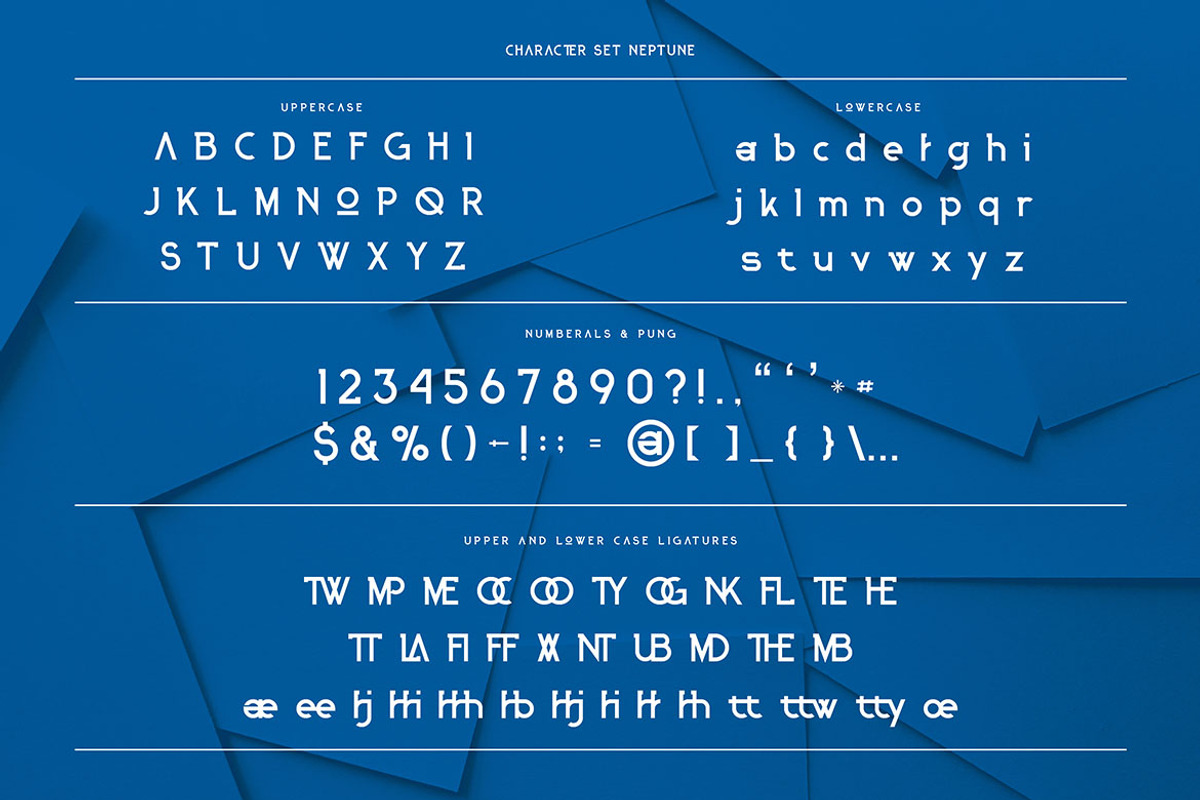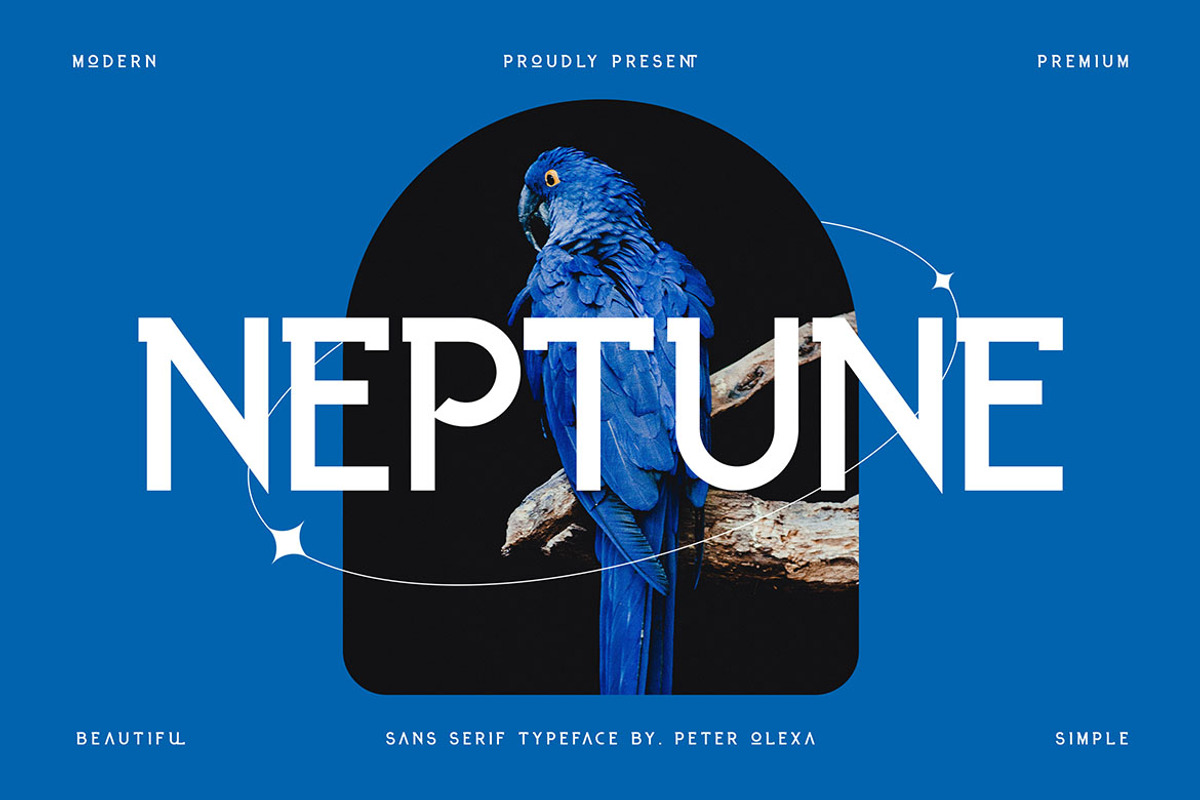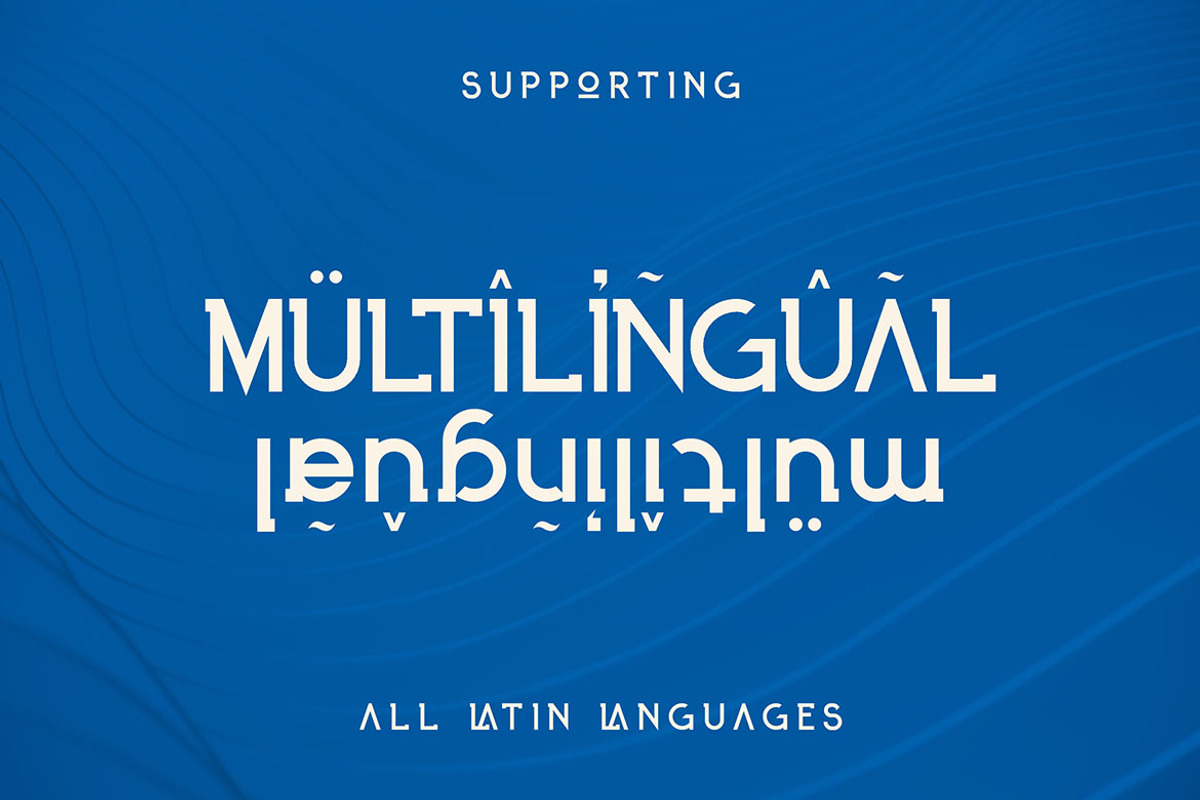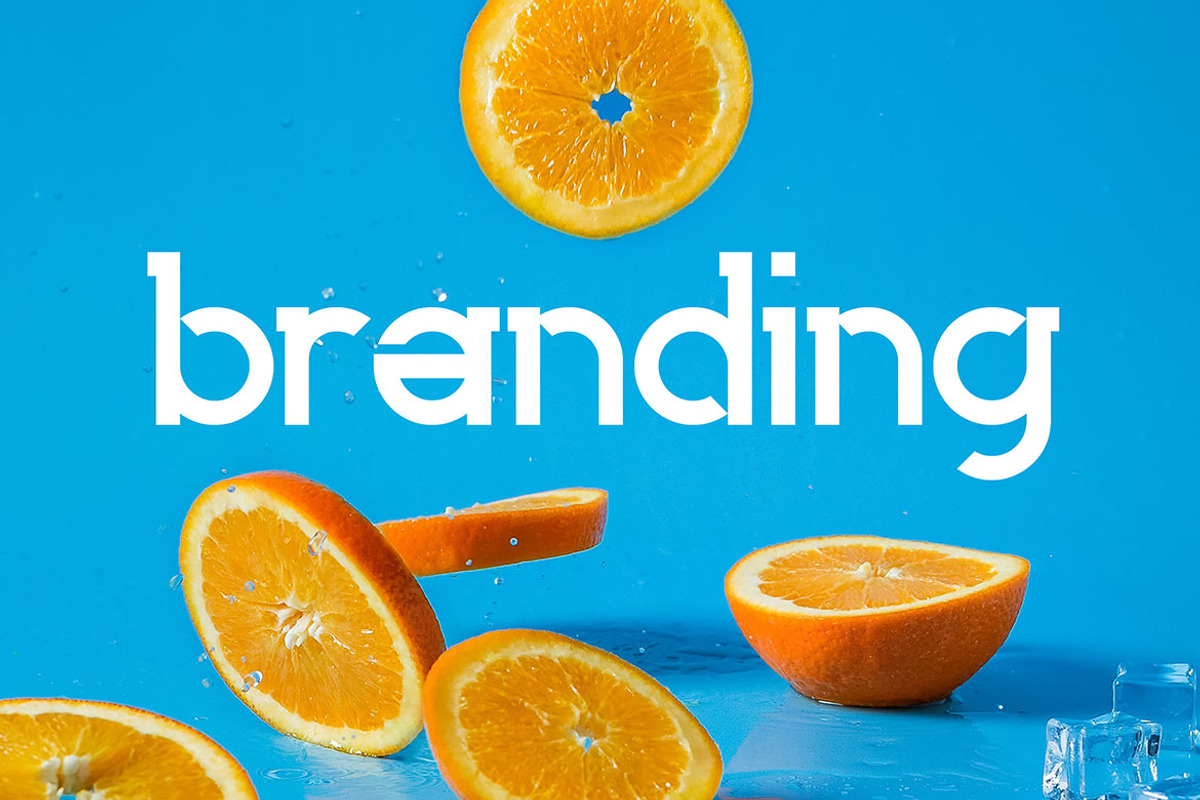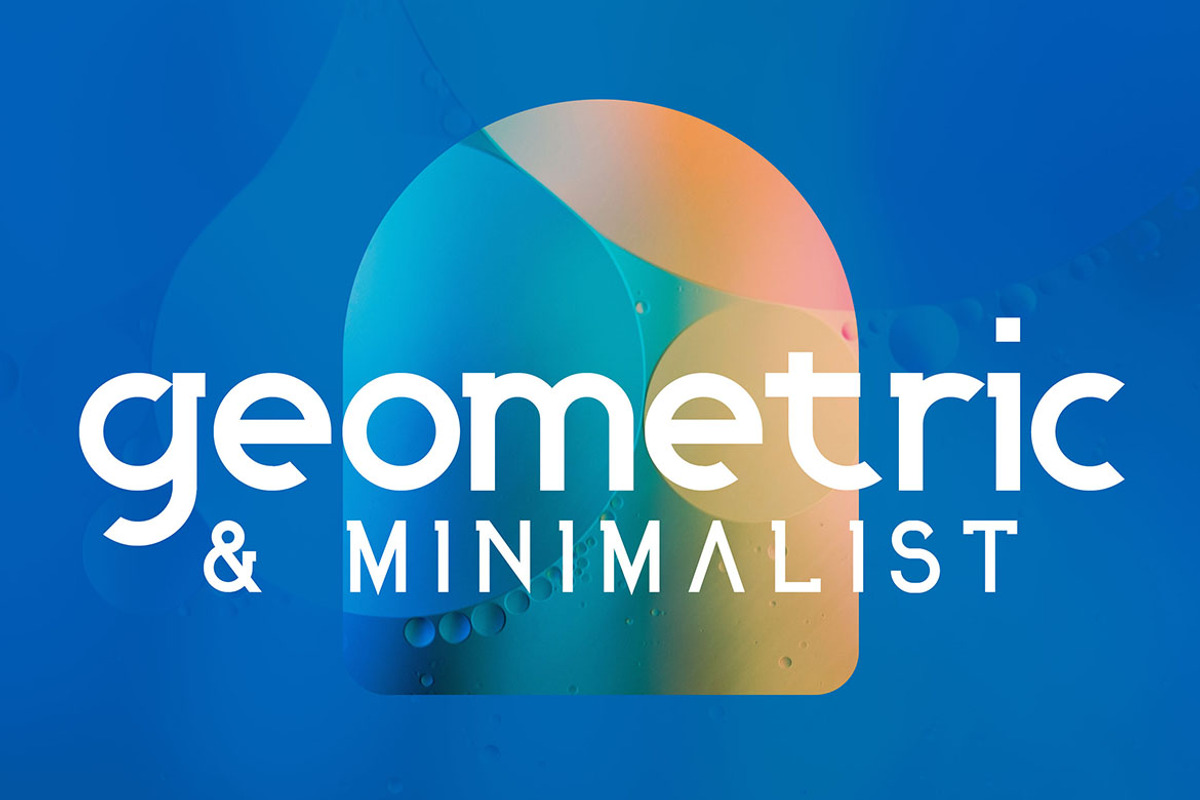
Neptune - Futuristic Font
Creative, modern & minimalist font for your new projects. With sharp or geometric style. Great for modern or futuristic projects.
- Great for modern & futuristic branding projects